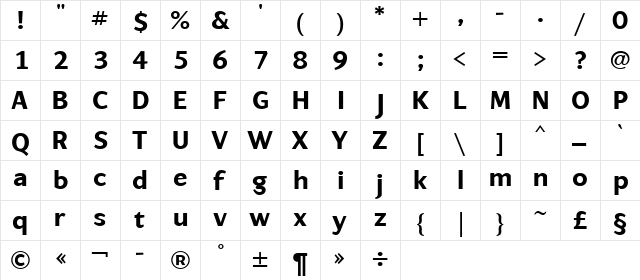
ArtemiusSans TT Bold
Design Context for ArtemiusSans TT Typeface
ArtemiusSans TT offers clean, dependable letterforms without strong stylistic allegiance, making it a practical choice for designers who need flexibility. Its bold stroke weight gives it real presence on the page.